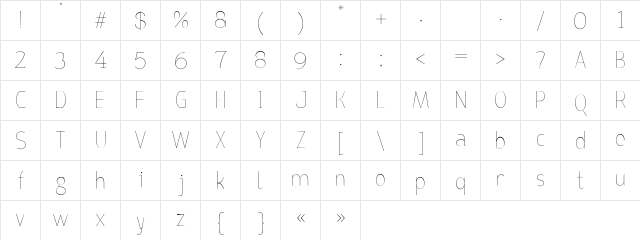
Bird cherry lite Regular
Design Context for Bird cherry lite Typeface
Bird cherry lite offers clean, dependable letterforms without strong stylistic allegiance, making it a practical choice for designers who need flexibility.